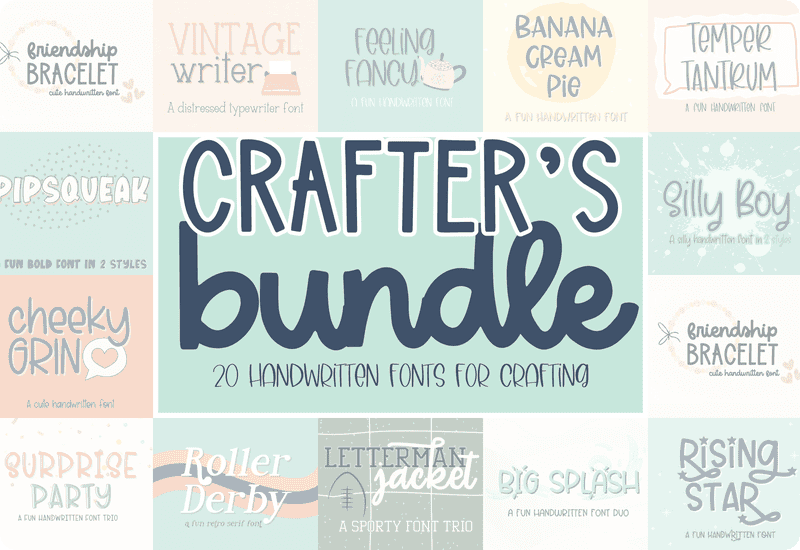
Make design projects elegant and stylish with 20 high-quality cursive and script fonts. Get the Crafters Font Bundle, perfect for Cricut projects, digital prints, and more.
Crafters Font Bundle is a carefully curated collection of 20 high-quality cursive and script fonts, designed for digital artists, crafters, and designers. Whether you’re working on Cricut projects, digital prints, invitations, or branding, this bundle provides versatile, stylish, and legible fonts that bring elegance to any design.
This bundle features a wide selection of cursive, script, and handwritten fonts, perfect for adding a personal touch to any project. From playful and whimsical to classic and refined, each font offers a distinct style that works seamlessly across different applications.
Fonts Included in This Bundle
This collection includes a variety of calligraphic, hand-lettered, and vintage-inspired fonts, offering options for both formal and casual designs.
Playful & Fun Handwritten Fonts:
- Banana Cream Pie – A soft, bubbly script with a friendly vibe
- Pipsqueak & Pipsqueak Outline – A youthful, energetic typeface
- Silly Boy & Silly Boy Outline – Whimsical, bold lettering with a carefree style
- Surprise Party & Surprise Party Outlines – Decorative fonts perfect for festive themes
Elegant & Stylish Script Fonts:
- Feeling Fancy – A smooth, flowing script ideal for wedding invitations
- Friendship Bracelet – A delicate, connected cursive font with a personal touch
- Vintage Writer – Classic calligraphy with a timeless appeal
Bold & Eye-Catching Fonts:
- Big Splash & Big Splash Solid – A modern, thick brush script
- Roller Derby – A retro-inspired font with a dynamic edge
- TemperTantrum – A rough, expressive script with attitude
Versatile Lettering for Logos & Branding:
- Letterman Jacket, Letterman Jacket Outline & Letterman Jacket Script – A stylish, collegiate-style font trio
- Rising Star – A sleek, professional-looking font with strong character
- Cheeky Grin – A fun, casual script perfect for marketing materials
Each font in this collection has been carefully designed to ensure readability, smooth curves, and professional-grade quality, making them suitable for a wide range of projects.